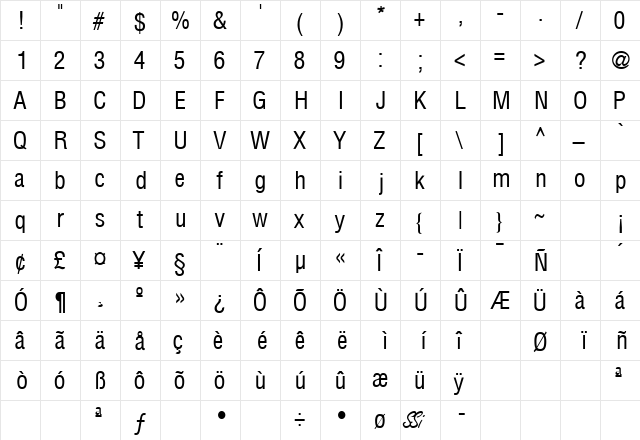
ContextLightExCondSSK Regular Font Preview
Design Context for ContextLightExCondSSK Typeface
ContextLightExCondSSK takes a measured approach to typography — its balanced proportions and neutral character make it a reliable workhorse for both digital and print work. Its slender proportions lend an understated elegance to any composition. The condensed width makes it efficient for tight spaces without sacrificing legibility.